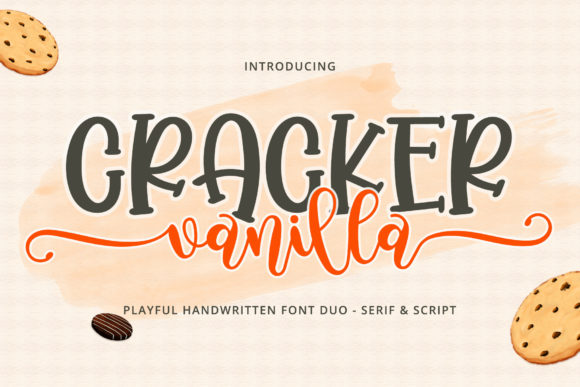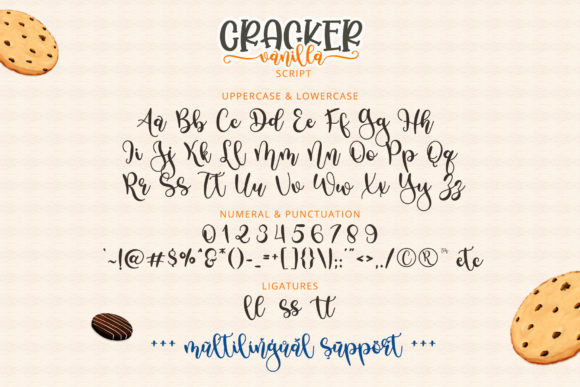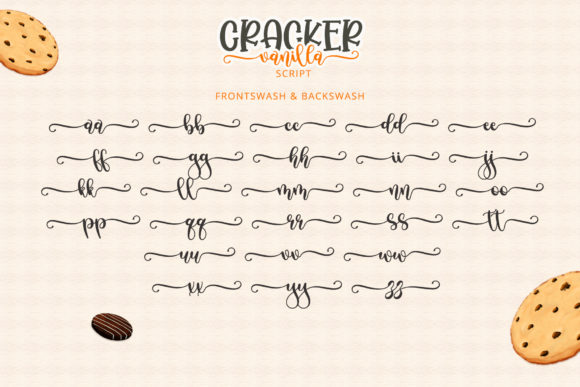
About Cracker Vanilla Font
Cracker Vanilla is playful and fun duo font (serif and handwritten). This font is perfect for any project that requires a bright touch, such as t-shirt mockups, greeting cards, sticker, logo, branding, and others.